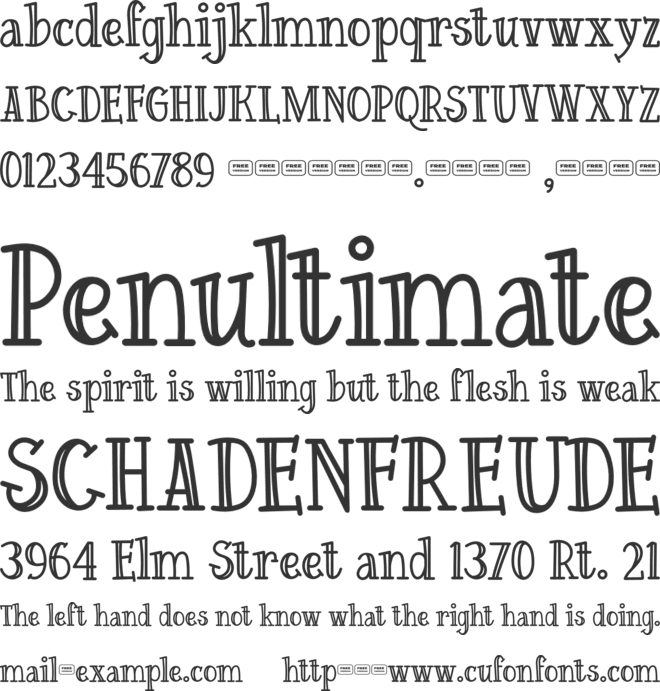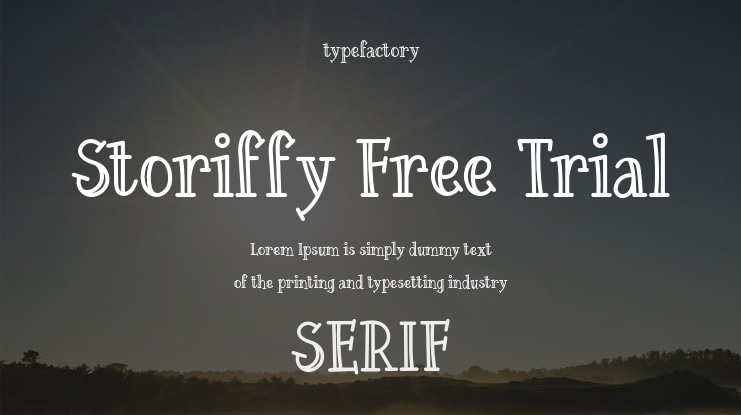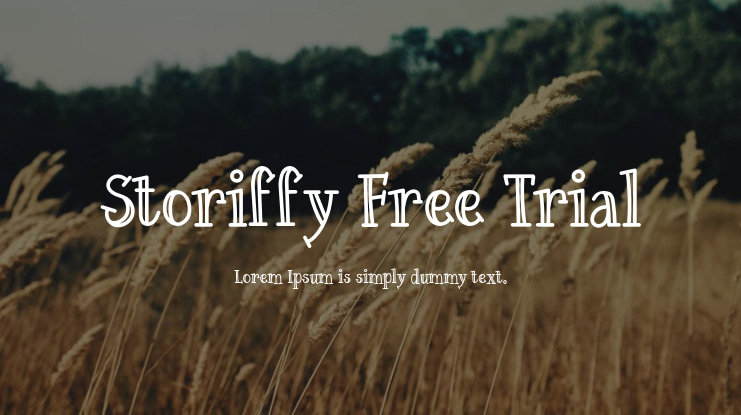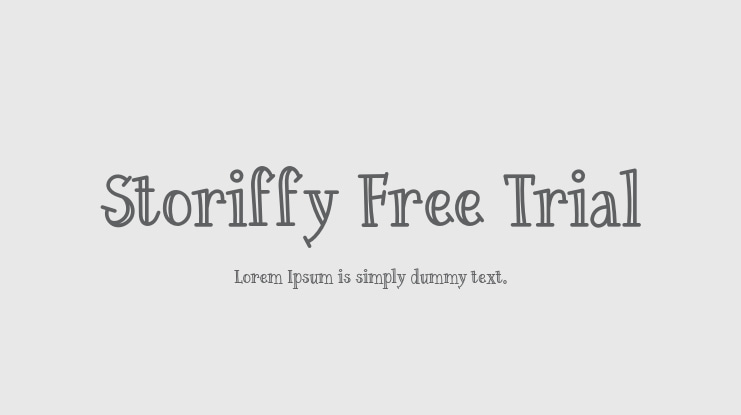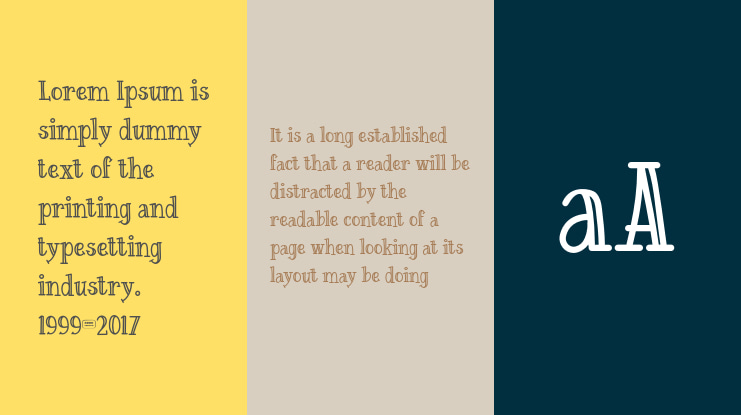
Storiffy Free Trial Font
Unleash creativity with "Storiffy" - a hand-drawn display font that weaves stories into your designs!
With its whimsical and unique letterforms, "Storiffy" captures the essence of handcrafted charm. Each character is meticulously crafted to infuse your projects with a touch of authenticity and storytelling, making it perfect for book covers, creative branding, playful posters, and more.
Embrace the versatility of "Storiffy" as it effortlessly enhances your designs. Whether you're crafting enchanting invitations, imaginative illustrations, captivating headlines, or charming social media graphics, this font will captivate your audience with its hand-drawn and story-driven style.
Step into a world of creativity and storytelling with "Storiffy" and let your designs narrate their own tales!